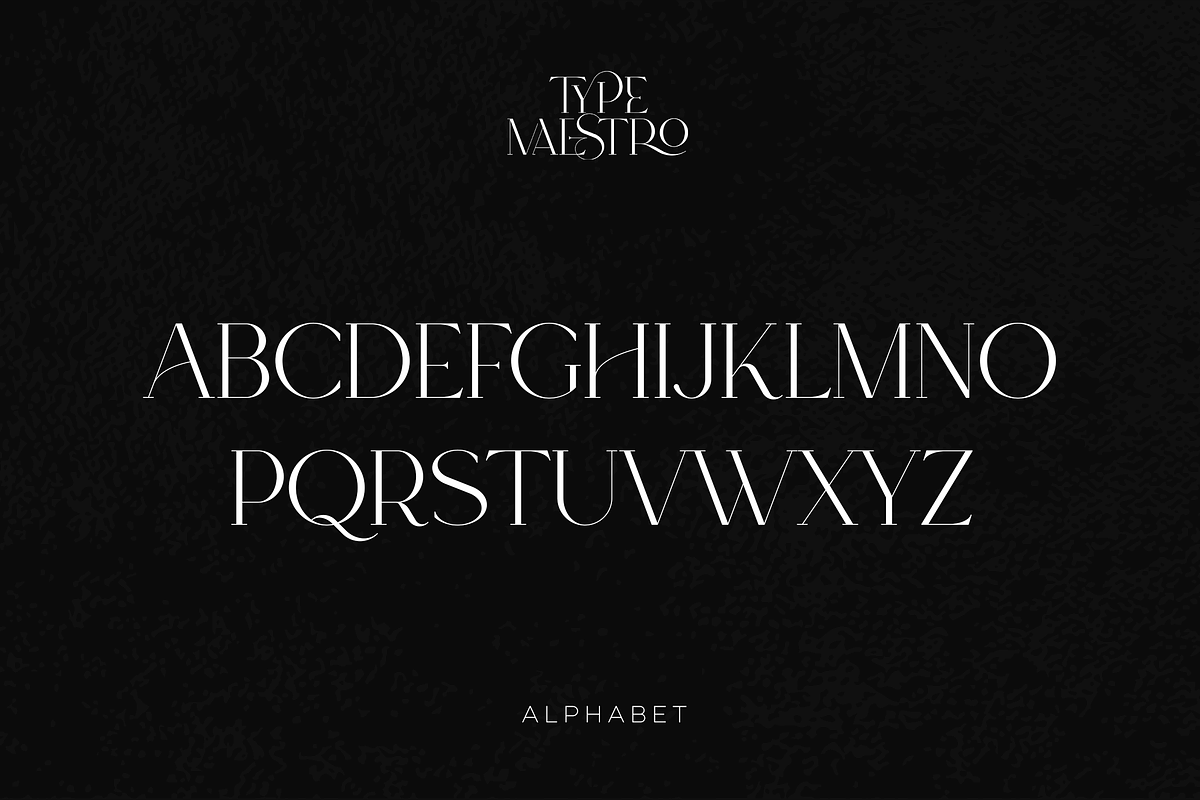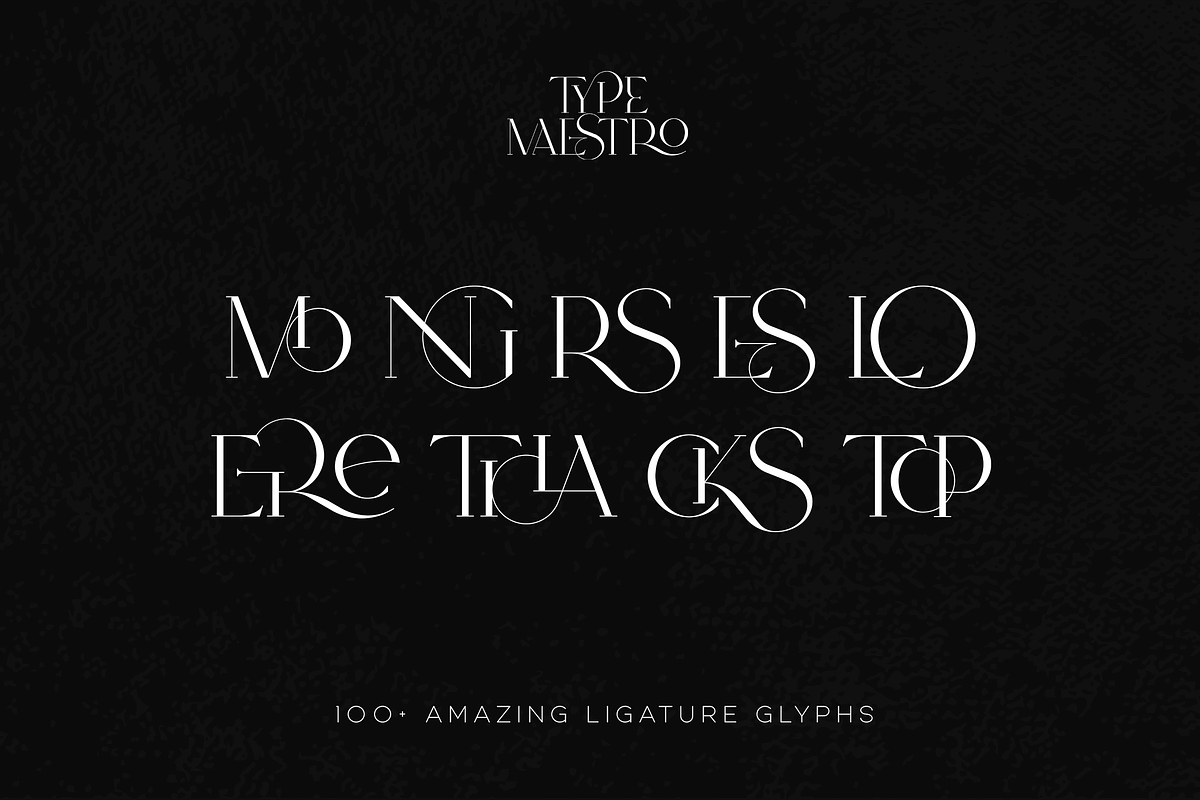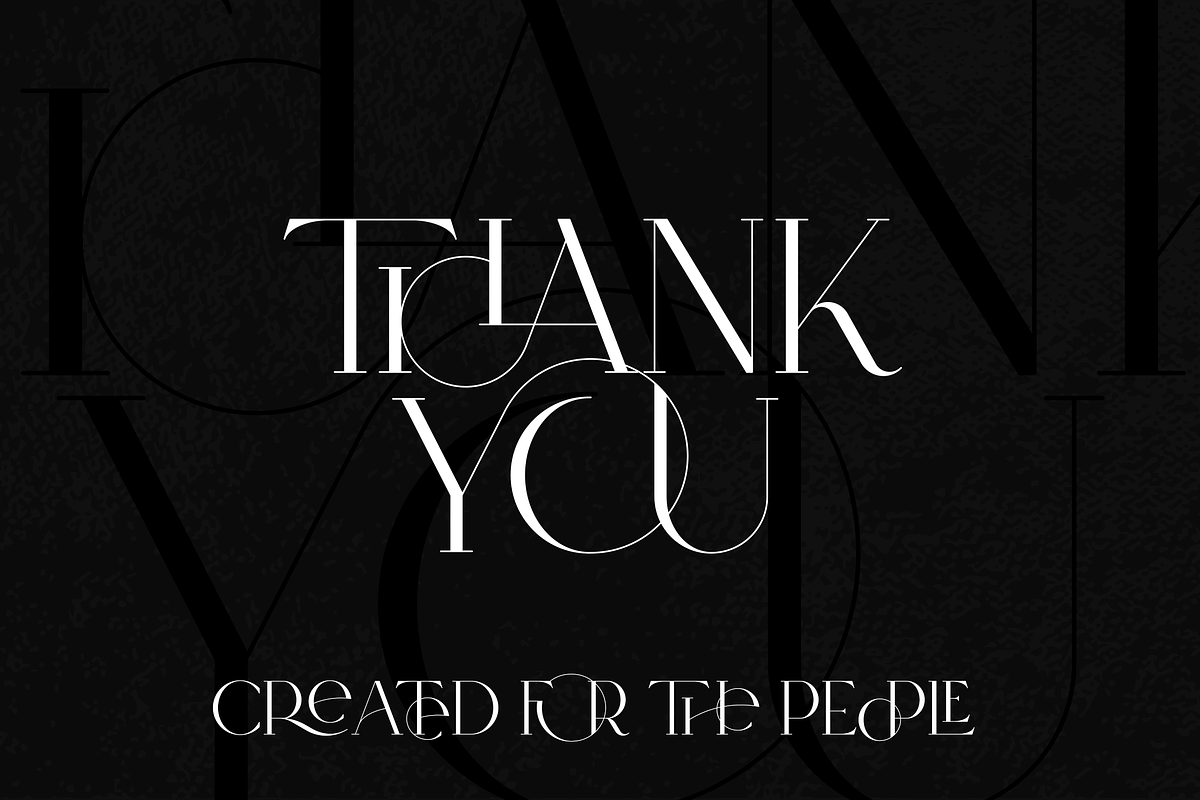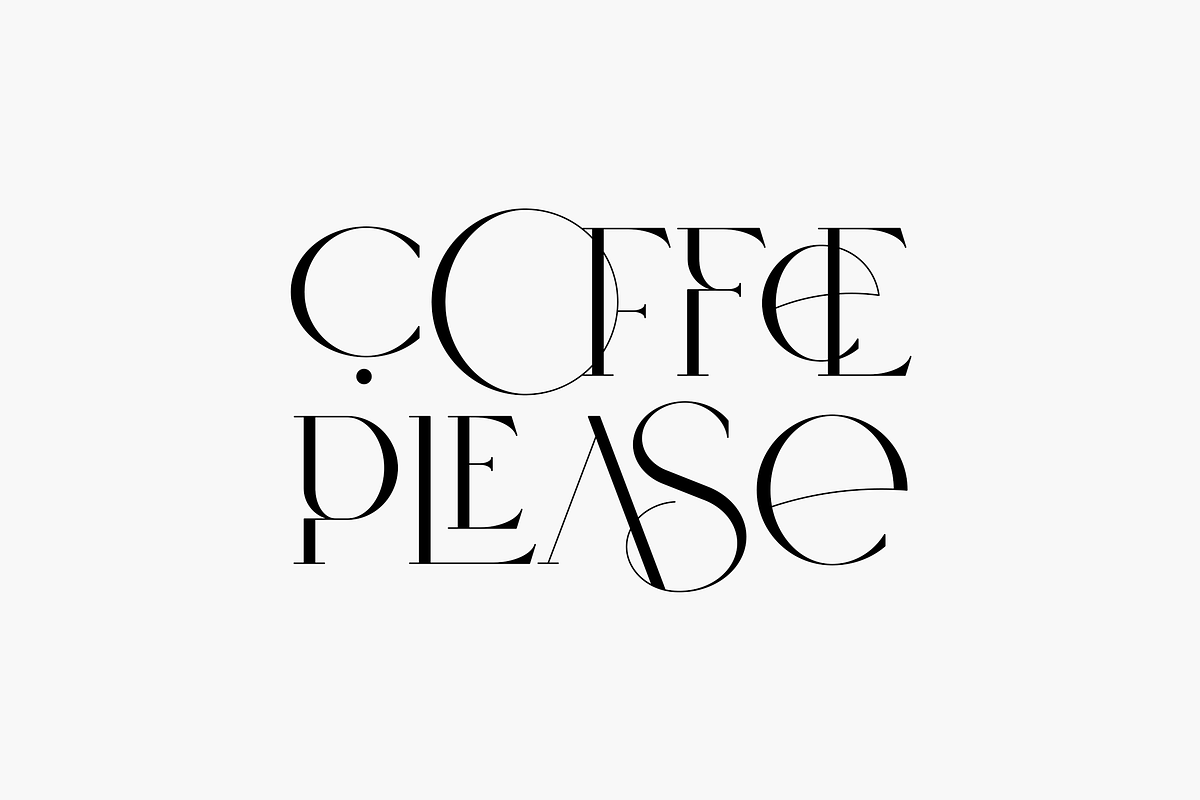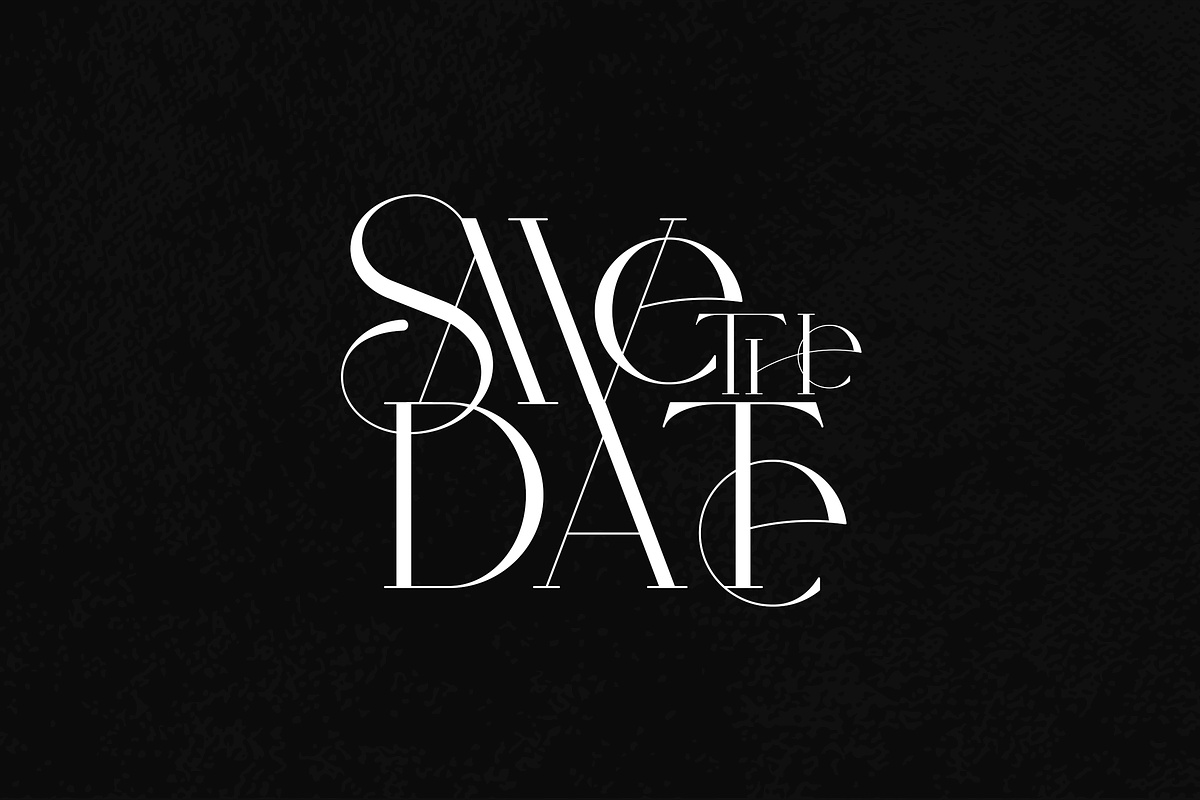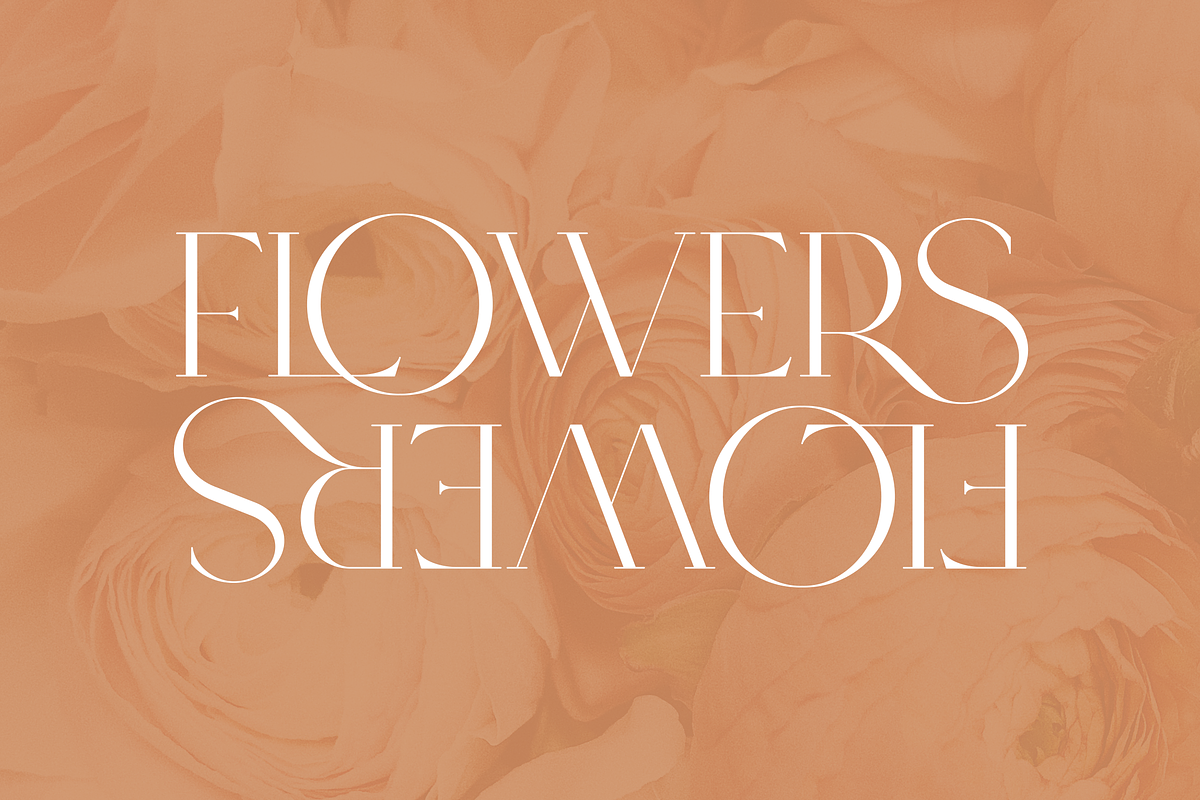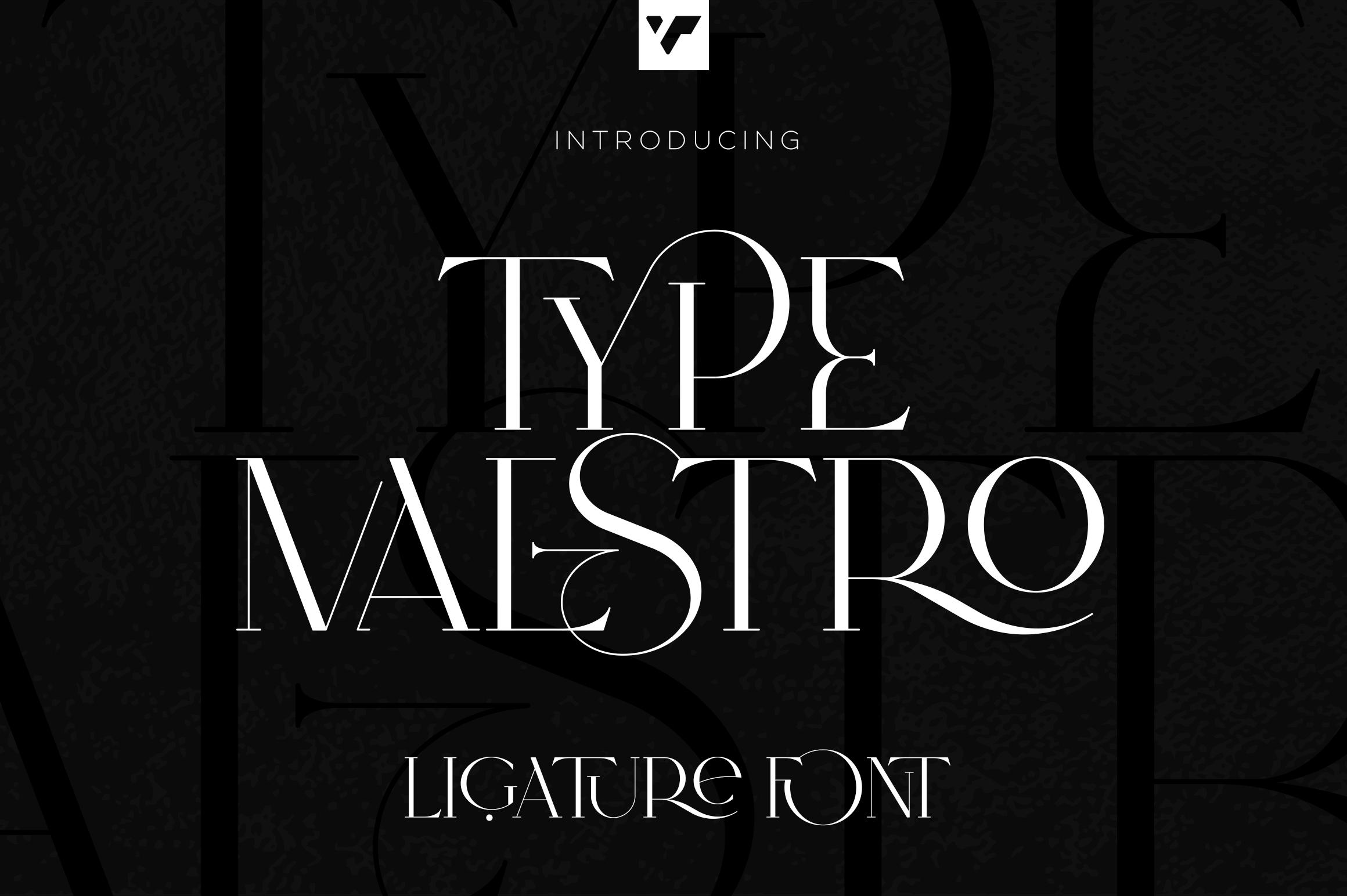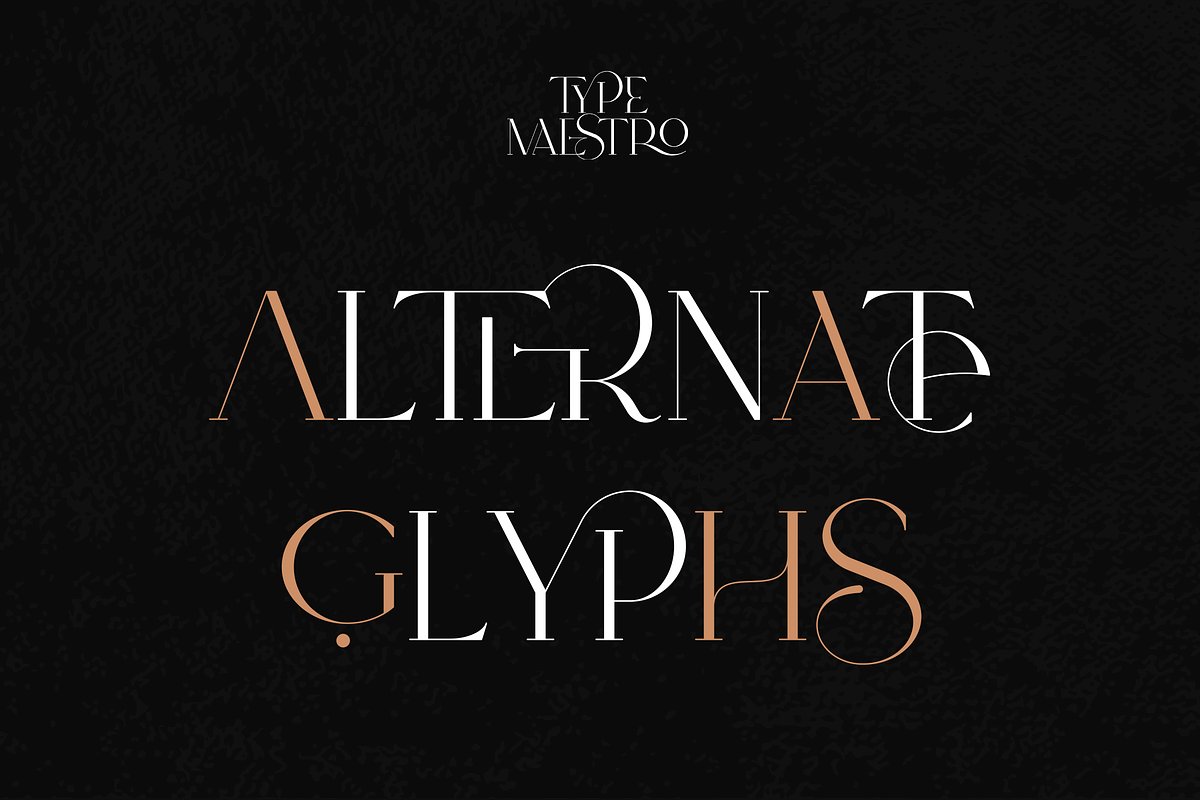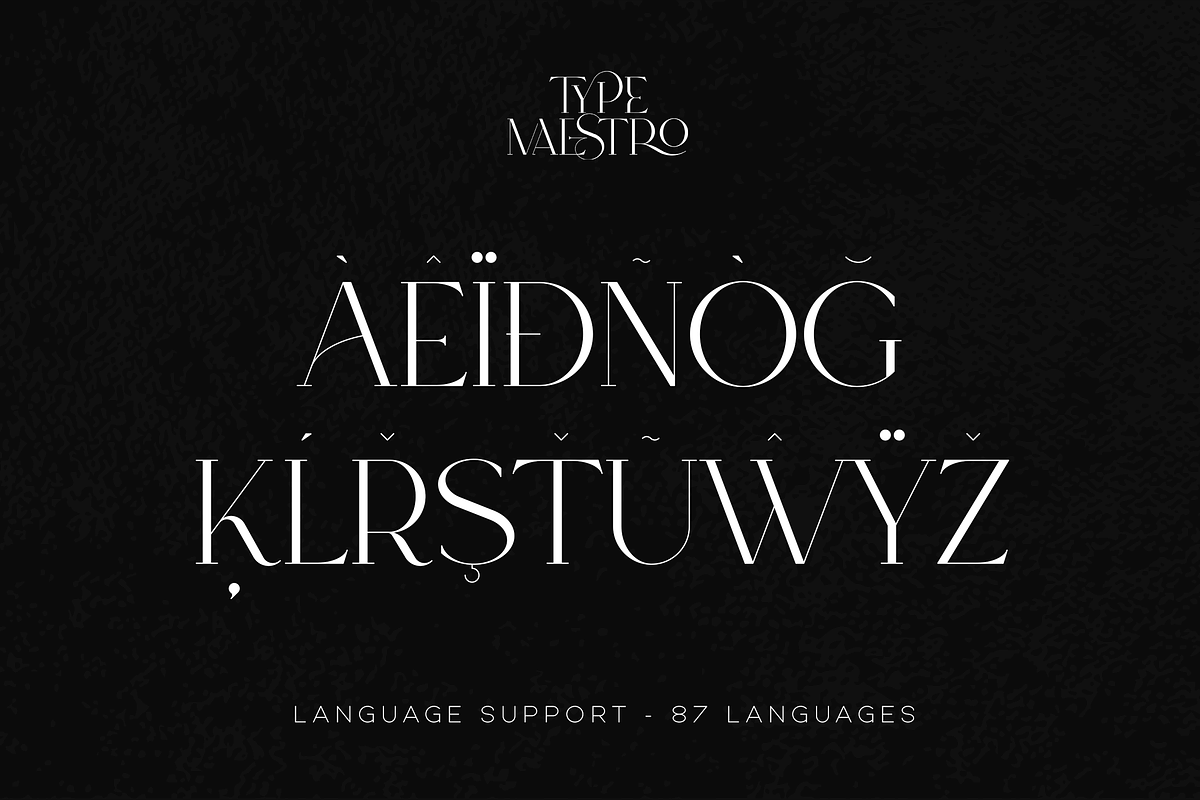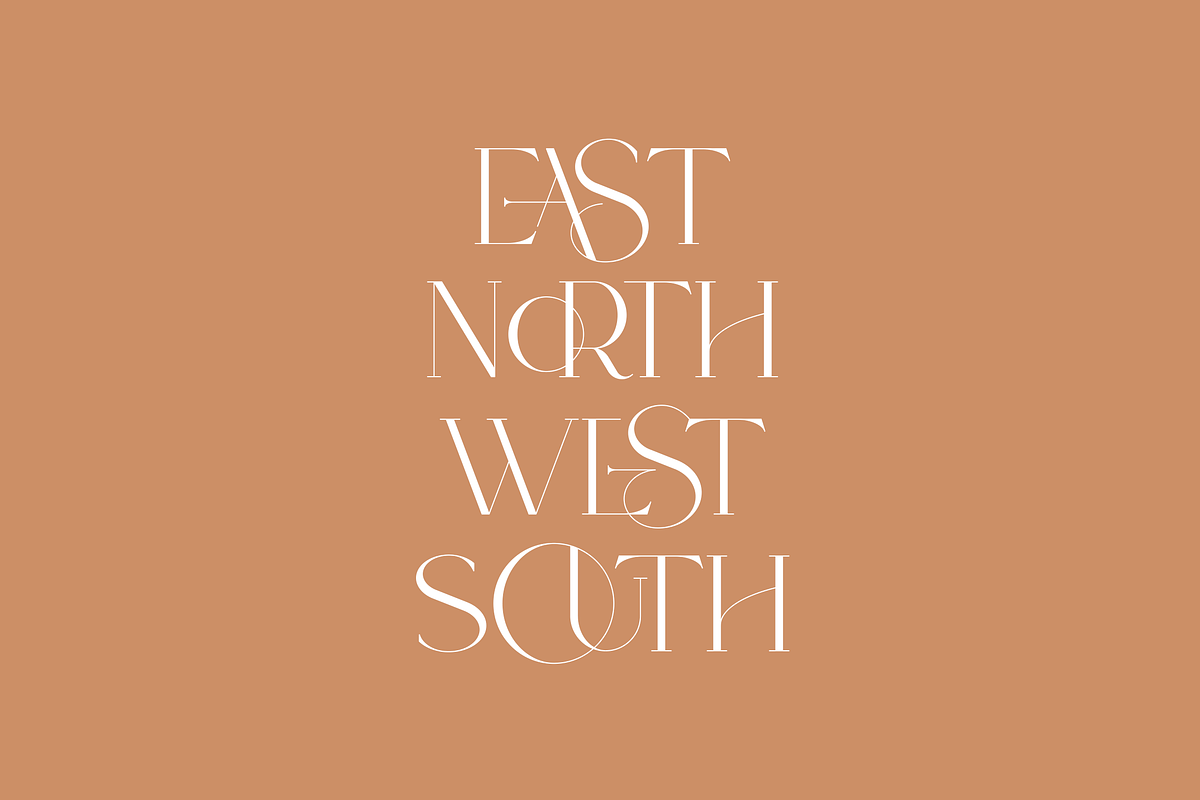
Type Maestro is an exquisite ligature serif font that exudes creativity and elegance. With over 100 meticulously crafted ligatures, this font is the perfect choice for designers looking to elevate their projects to new heights.
One of the key features of Type Maestro is its extensive language support, boasting compatibility with 87 different languages. This makes it an incredibly versatile font that can be used for a wide range of projects, no matter where your audience is located.
But what truly sets Type Maestro apart are its alternate glyphs. These unique characters add a touch of individuality and personality to your text, allowing you to create truly one-of-a-kind designs. Whether you're designing a logo, a website, or a social media post, Type Maestro has the flexibility and style to help you stand out from the crowd.
Language Support : Afrikaans, Albanian, Asu, Basque, Bemba, Bena, Breton, Chiga, Colognian, Cornish, Czech, Danish, Dutch, Embu, English, Estonian, Faroese, Filipino, Finnish, French, Friulian, Galician, Ganda, German, Gusi,i Hungarian, Indonesian, Irish, Italian, Jola-Fonyi, Kabuverdianu, Kalenjin, Kamba, Kikuyu, Kinyarwanda, Latvian, Lithuanian, Lower Sorbian, Luo, Luxembourgish, Luyia, Machame, Makhuwa-Meetto, Makonde, Malagasy, Maltese, Manx, Meru, Morisyen, North Ndebele, Norwegian, Bokmål, Norwegian, Nynorsk, Nyankole, Oromo, Polish, Portuguese, Quechua, Romanian, Romansh, Rombo, Rundi, Rwa, Samburu, Sango, Sangu, Scottish, Gaelic, Sena, Shambala, Shona, Slovak, Soga, Somali, Spanish, Swahili, Swedish, Swiss, German, Taita, Teso, Turkish, Upper, Sorbian, Uzbek (Latin), Volapük, Vunjo, Walser, Welsh, Western Frisian, Zulu
Ligatures : IS, FO, OD, FA, TY, EX, NN, EY, SS, LL, FU, US, UT, AS, AN, AM, CI, LO, ES, RO, ET, TE, CK, OH, OO, OE, OC, KO, KE, KC, CH, SE, EA, UR, RS, KS, TH, TU, TT, TK, TL, HE, RG, EP, ER, RE, RC, LE, ND, ED, OF, HA, EN, CT, ST, NT, ON, ME, MO, NG, NC, UG, UC, OU, GH, OR, OP, EE, YO, VE, IT, WE, TI, VO, WO, SA, MA, OL, VA, YP, YR, OX, XO, BA, OT, TO, BE, RU, KU, TW, EN, NT, FAS, FAST, CKS, OOD, FOOD, FOO, TEE, TOR, TOP, TWE, NTY, TYP, OUT, UST, URS, WAS, THE, WES, EST, EEN, ERS, EAS, LES, ENT, FOR, OUG, ERE, TER, YOU, VER, HER, THER, THA, AND, ITH, THI, MENT, WERE, WER, ROM, THE, ERG, ERE, ERC, ERU, ERO, NTH, FOU, HRO, HRE, HRC, HRU, TWO, GHT, OUR, OUP, STO, VEN, ORT, MEN